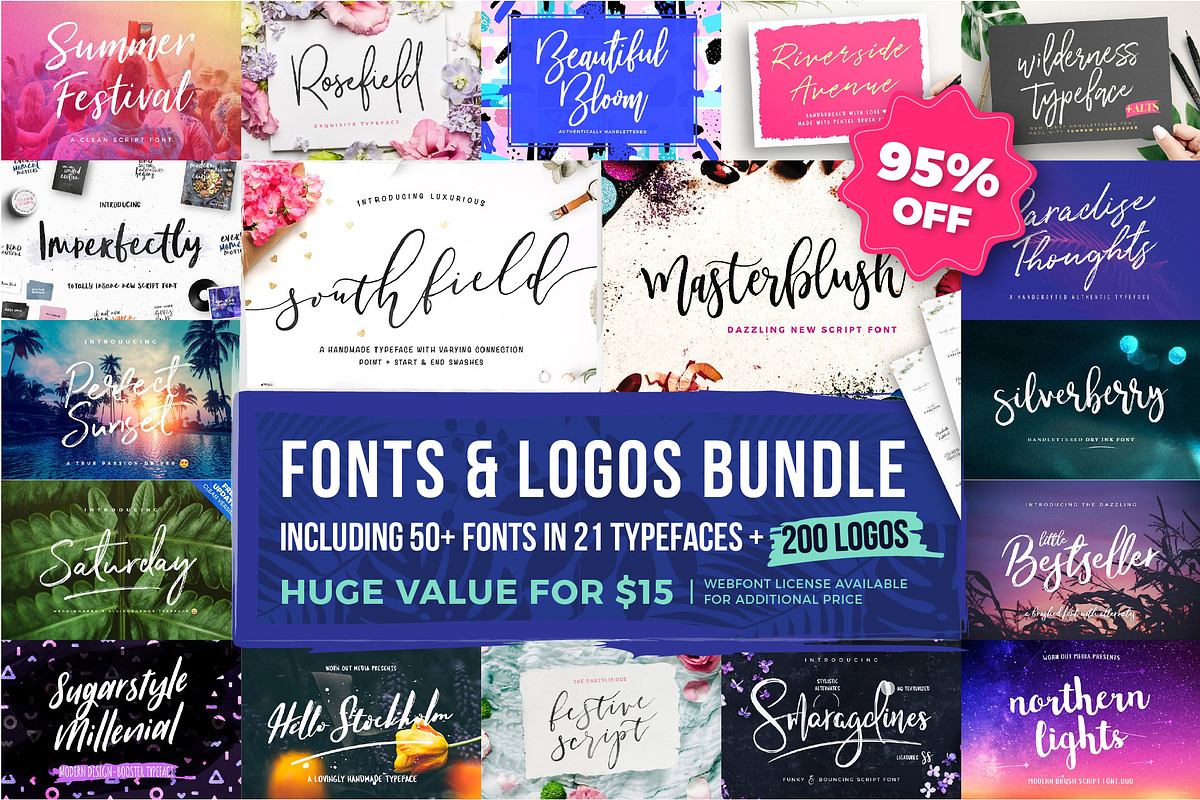
Massive, versatile, and perfectly curated for creatives, Typographer's Dream Box + 200 Logos Free Download is an all-in-one design toolkit packed with premium fonts and ready-to-use logo templates. Whether you're building a brand, designing social media content, crafting packaging, or creating website headers, this bundle gives you the tools to do it all with style.
Inside, you’ll find a wide range of fonts—from elegant scripts and clean sans-serifs to bold displays and vintage serifs—plus 200 pre-made logos that are fully customizable. It’s a dream resource for designers, entrepreneurs, and content creators who want professional results fast.